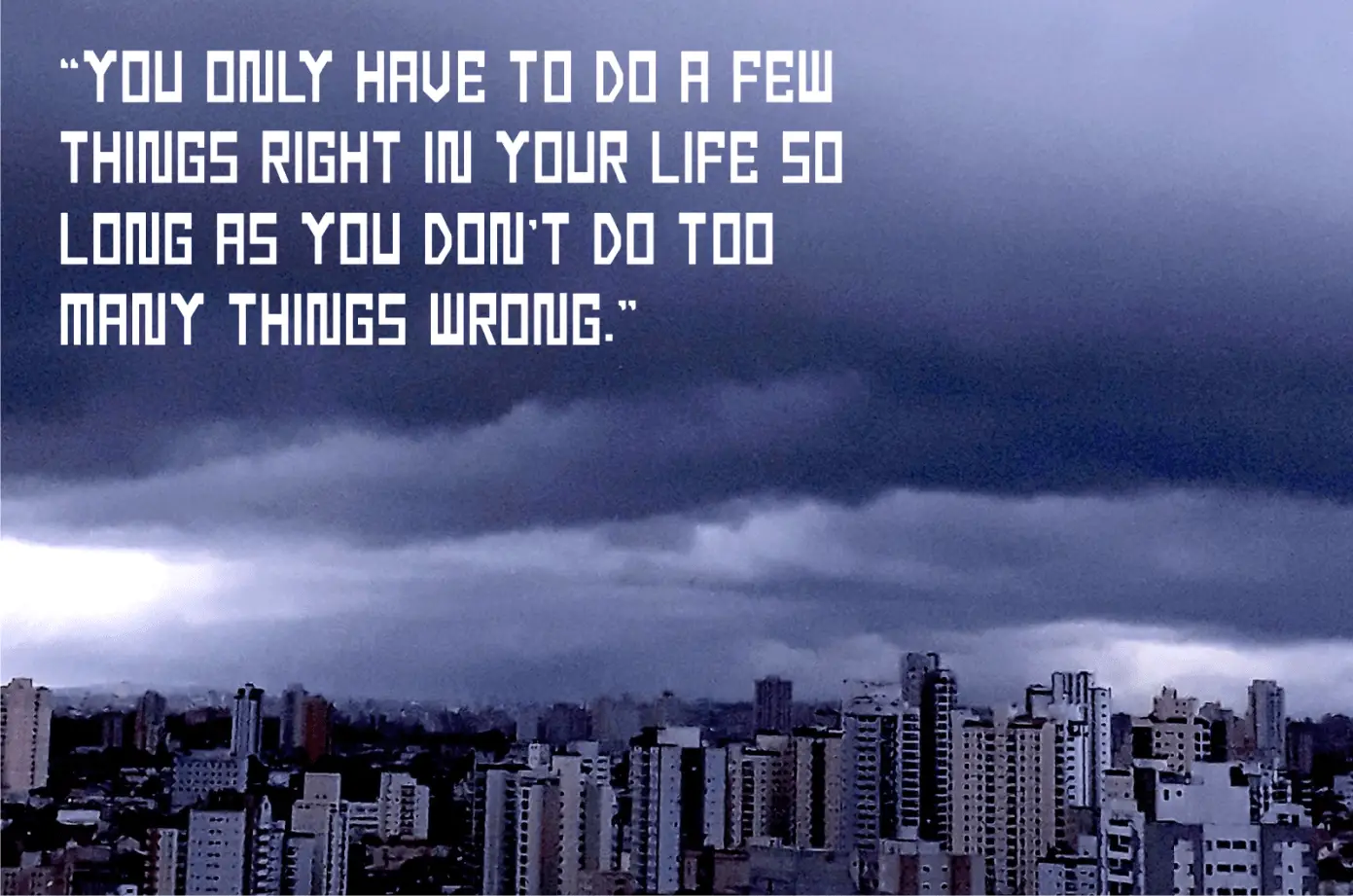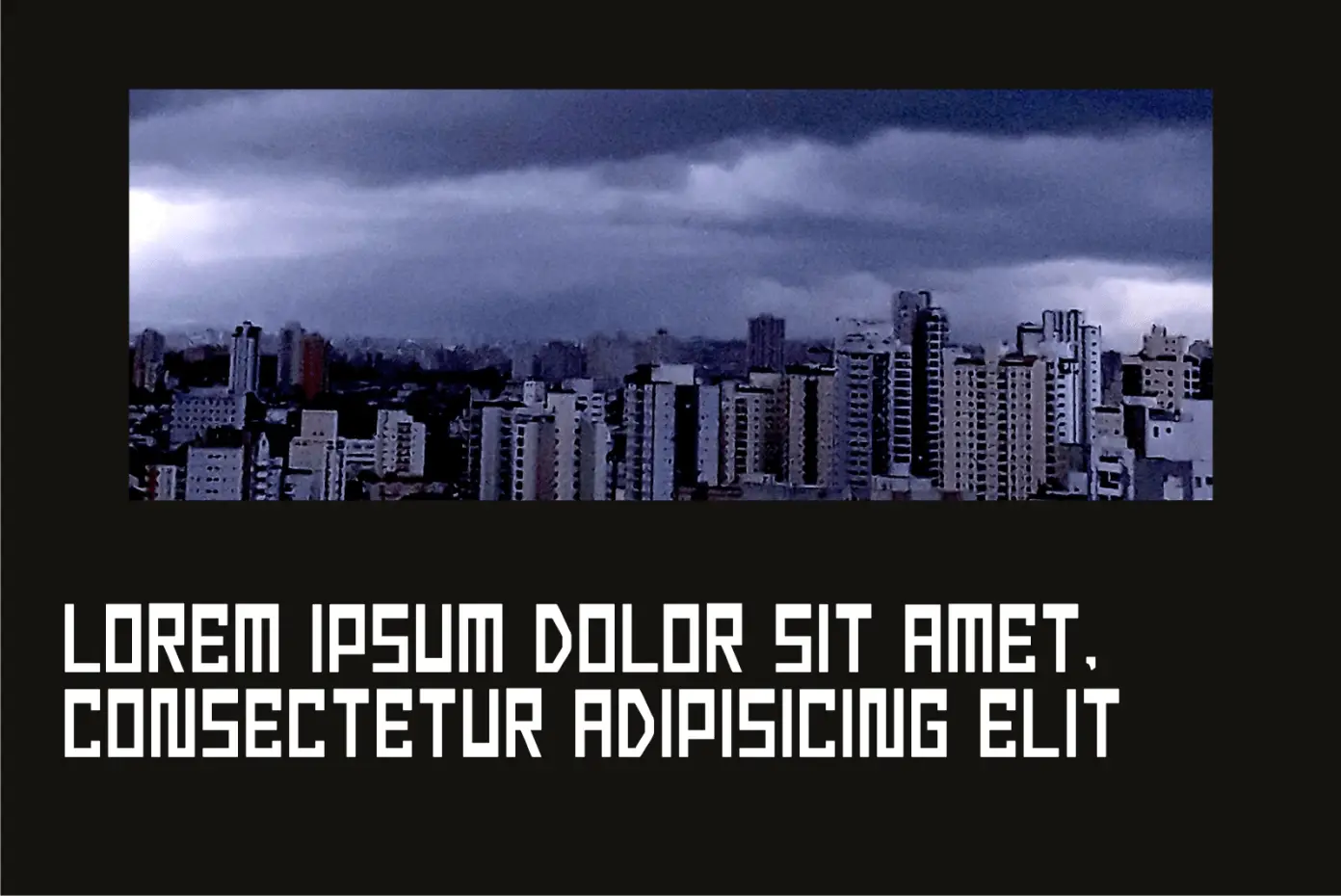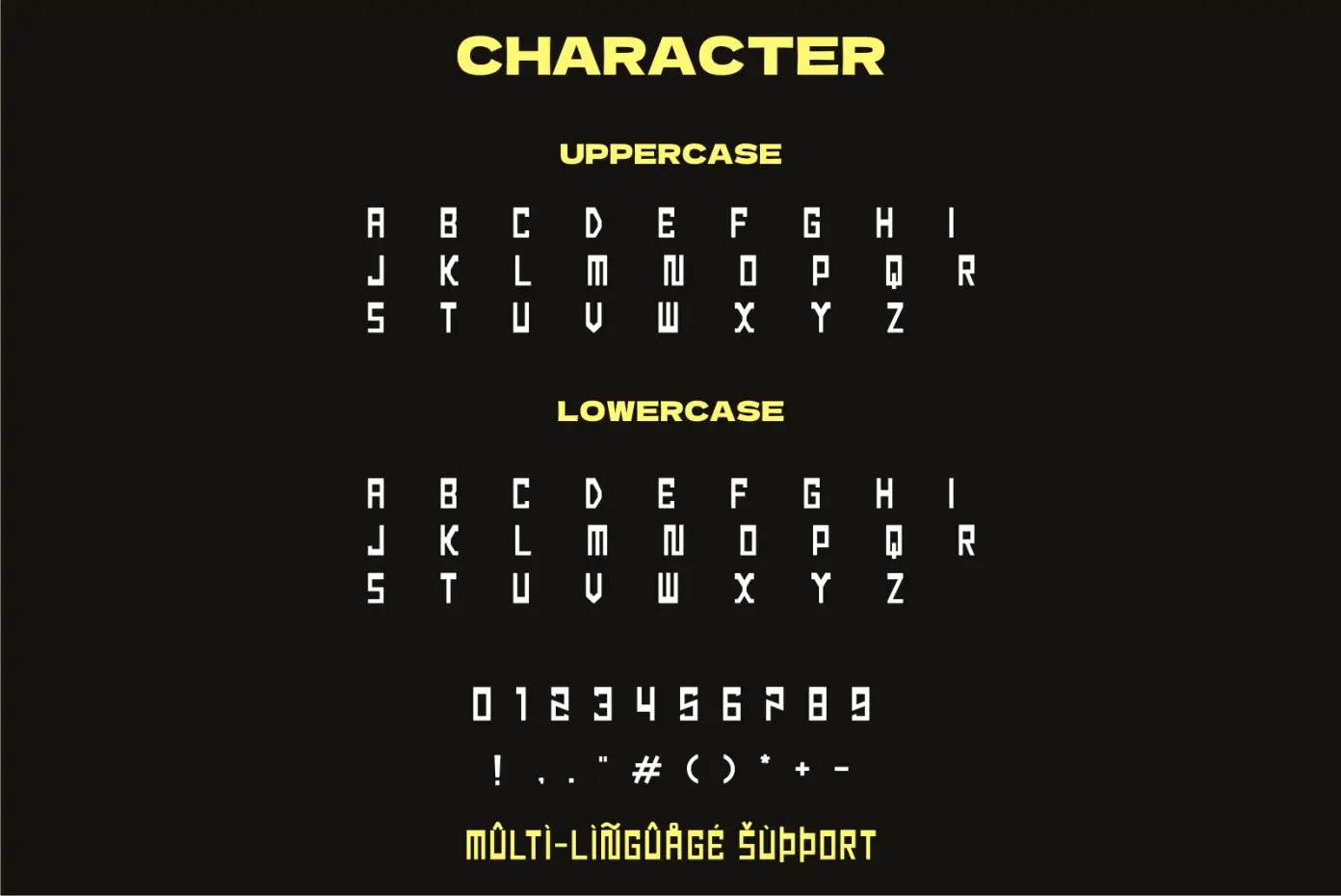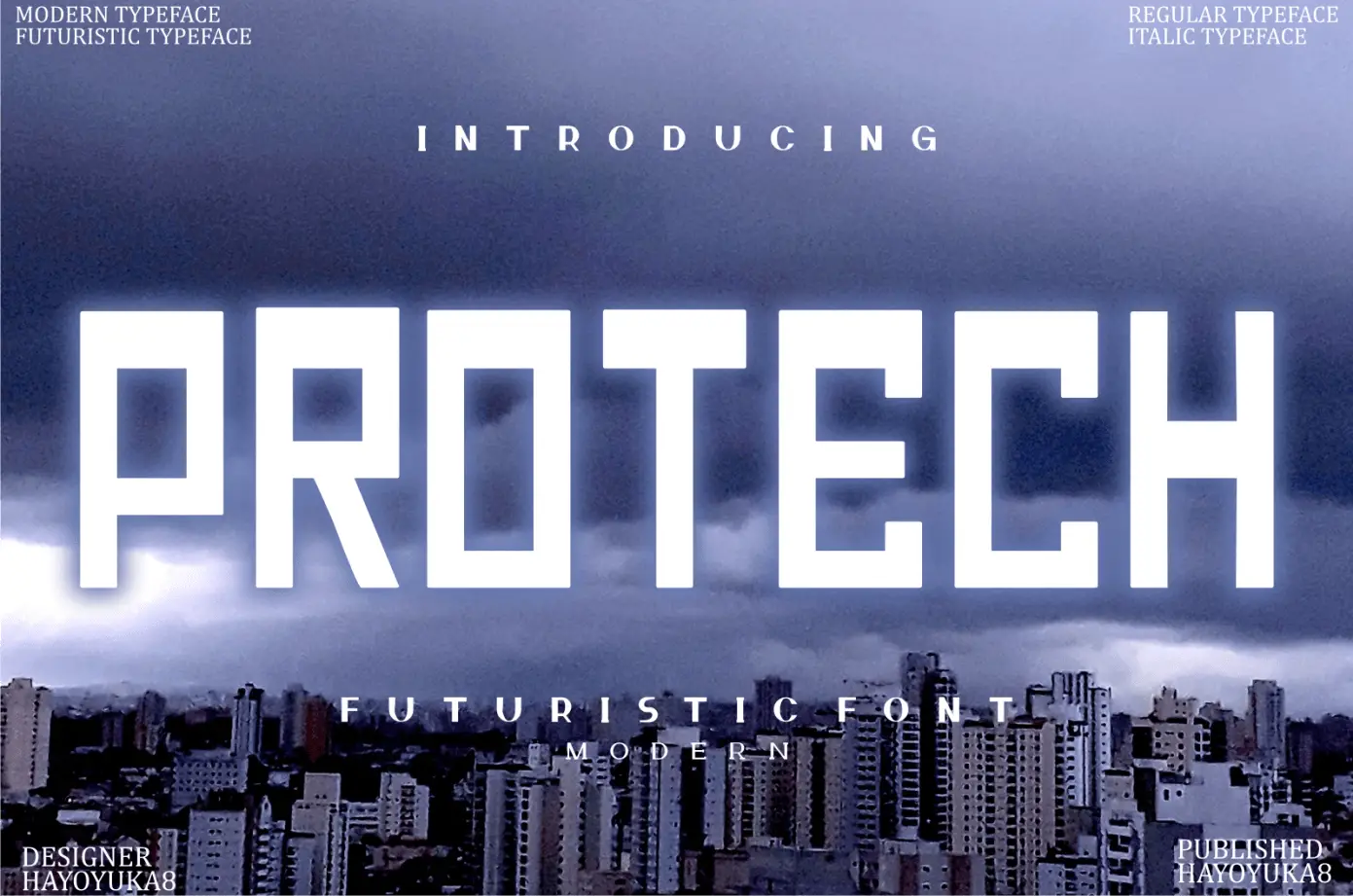
Protech Display Font
The Protech Display Font is a striking typeface designed for bold branding and eye-catching visuals. With its unique character shapes and distinct personality, this font is perfect for creating memorable logos, headlines, and promotional materials.
• Style: Display
• Ideal for branding, advertising, and web design.
• Best utilized in large sizes for maximum impact.
• Combine with complementary sans-serif fonts for a balanced look.